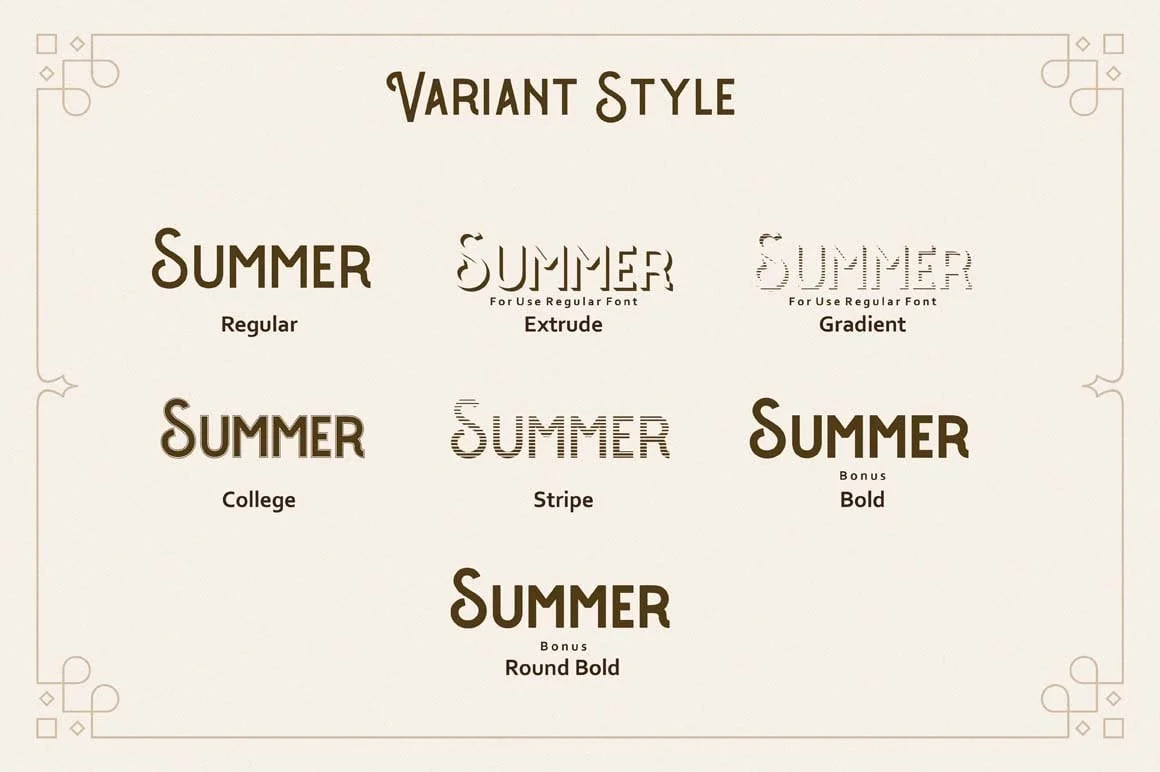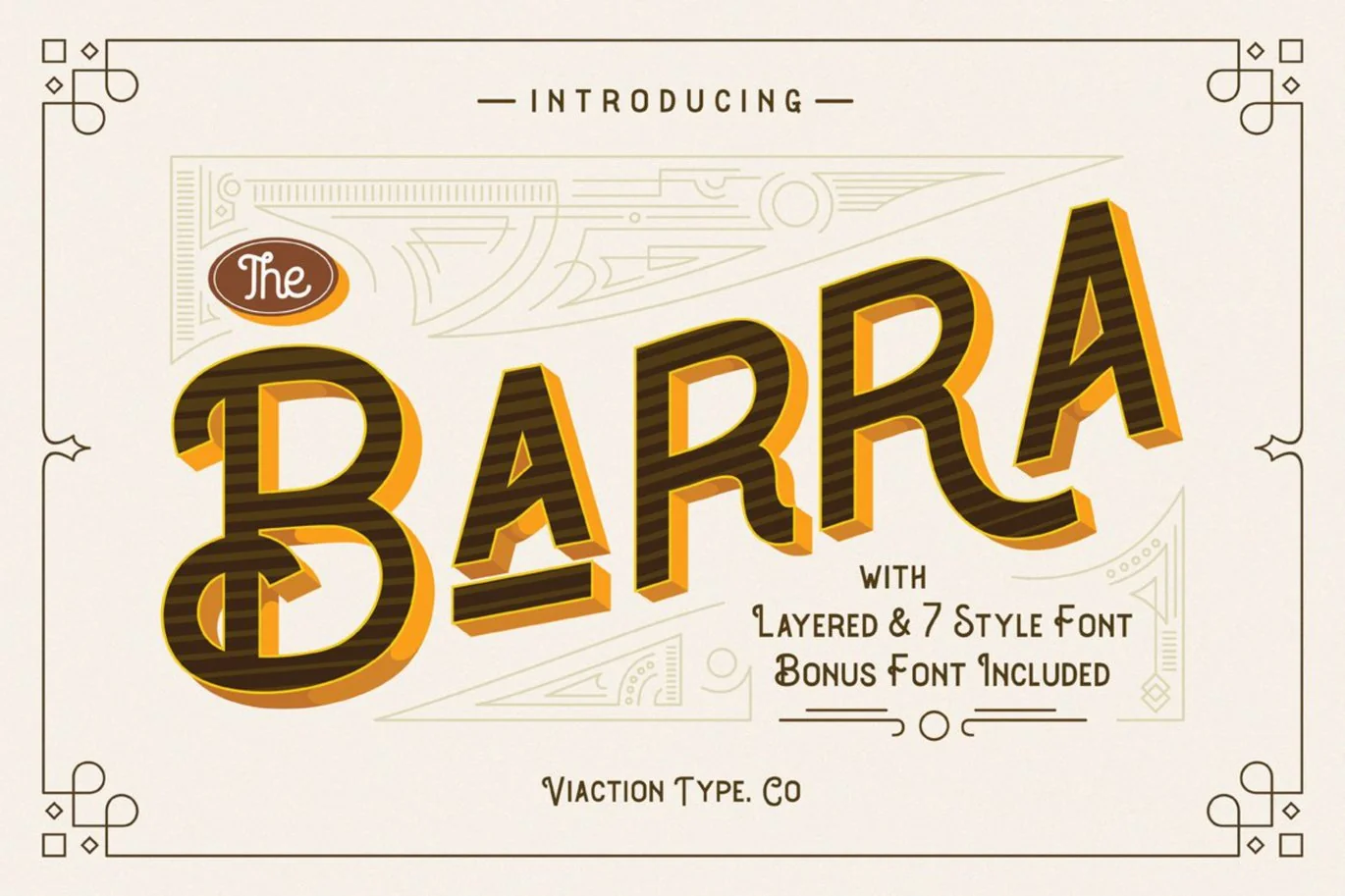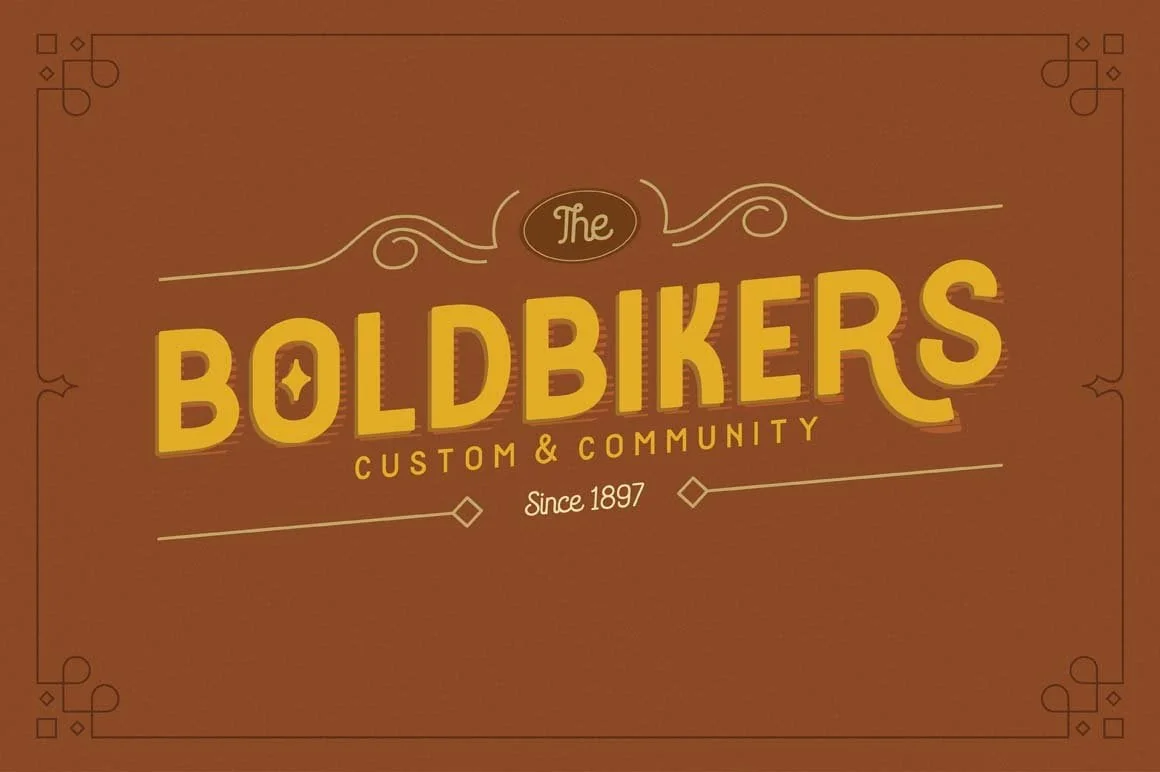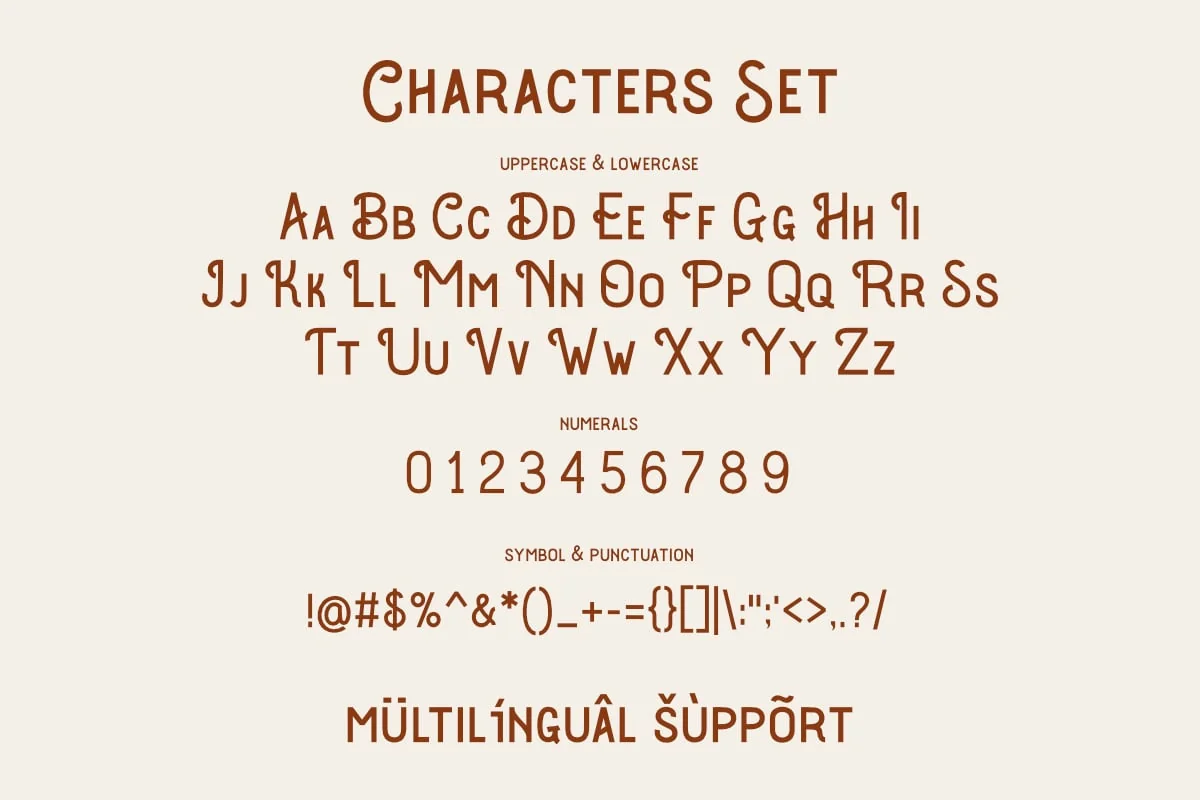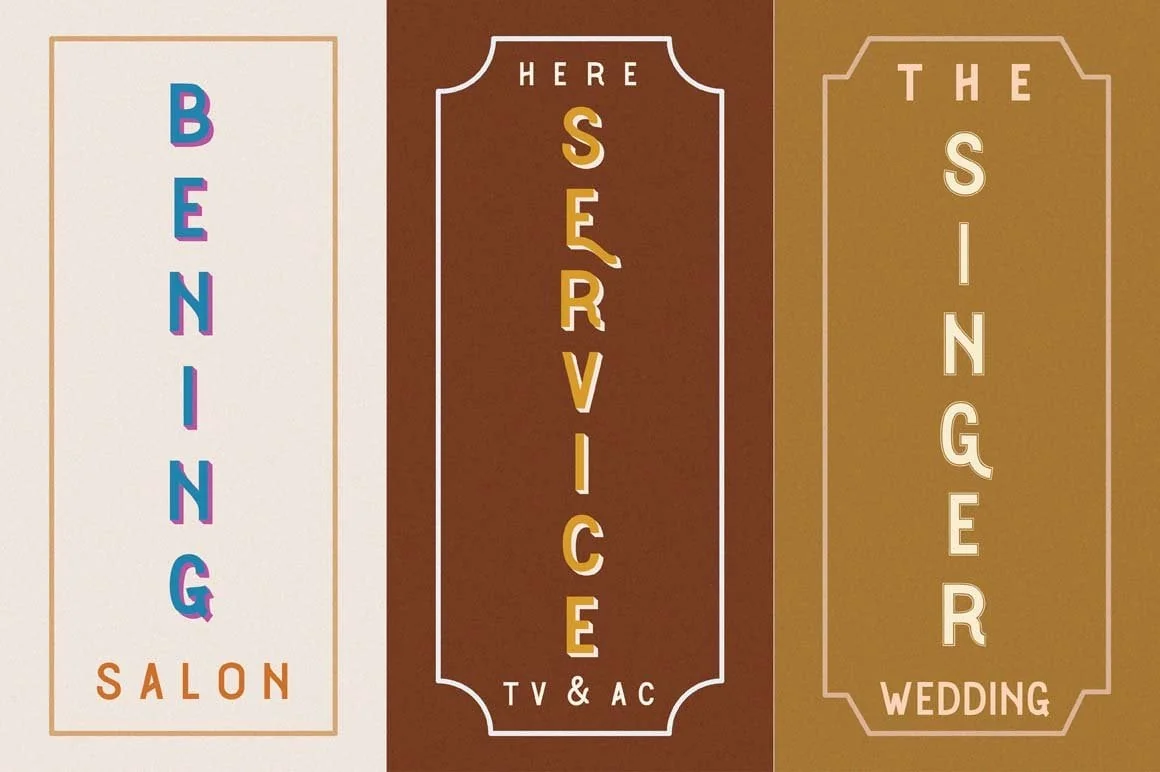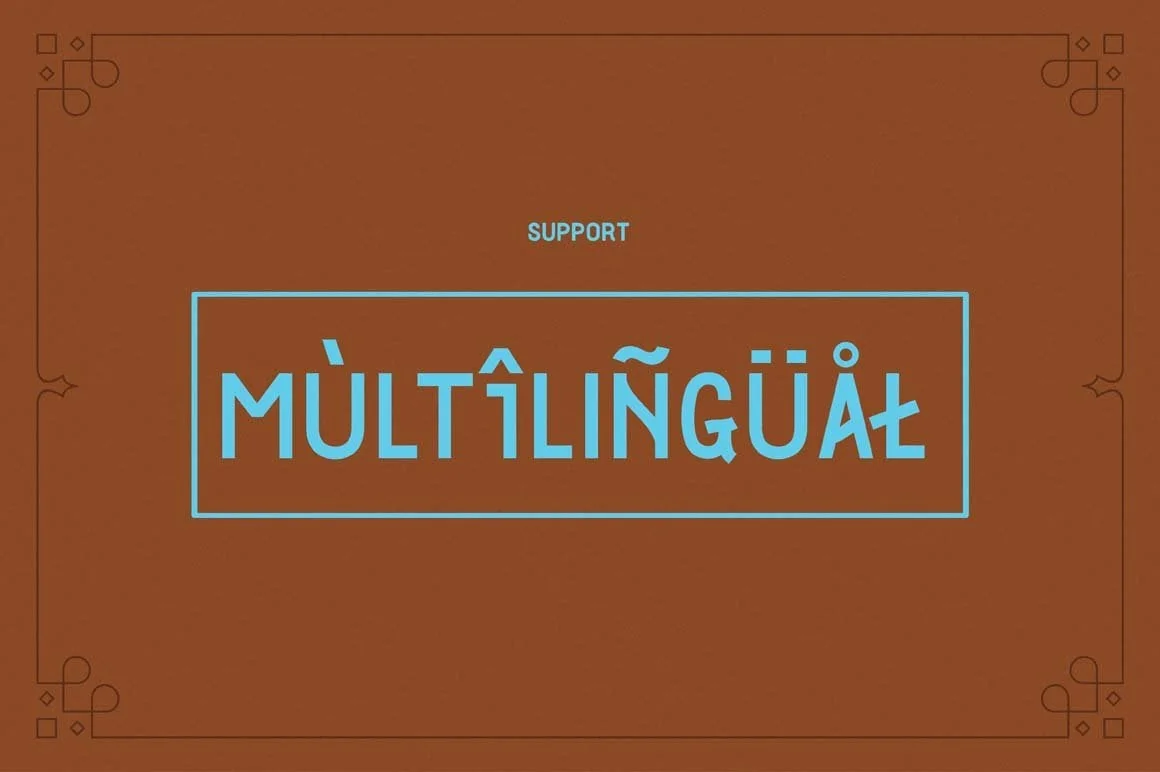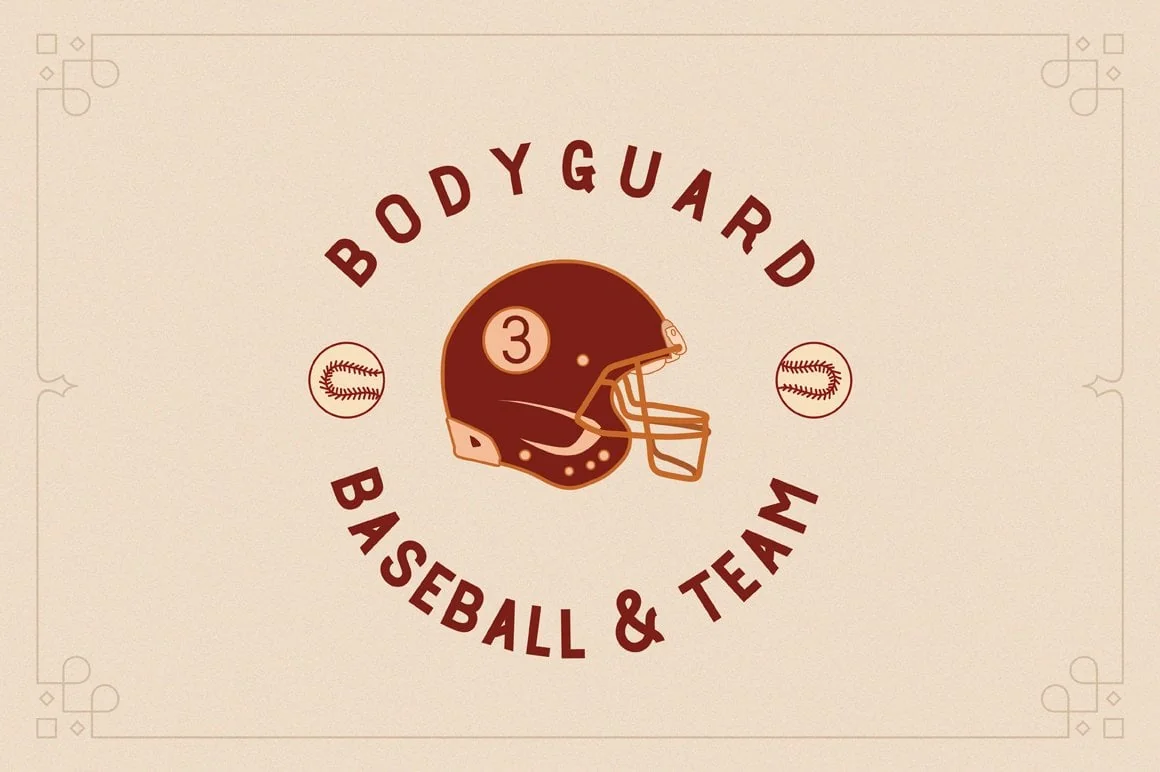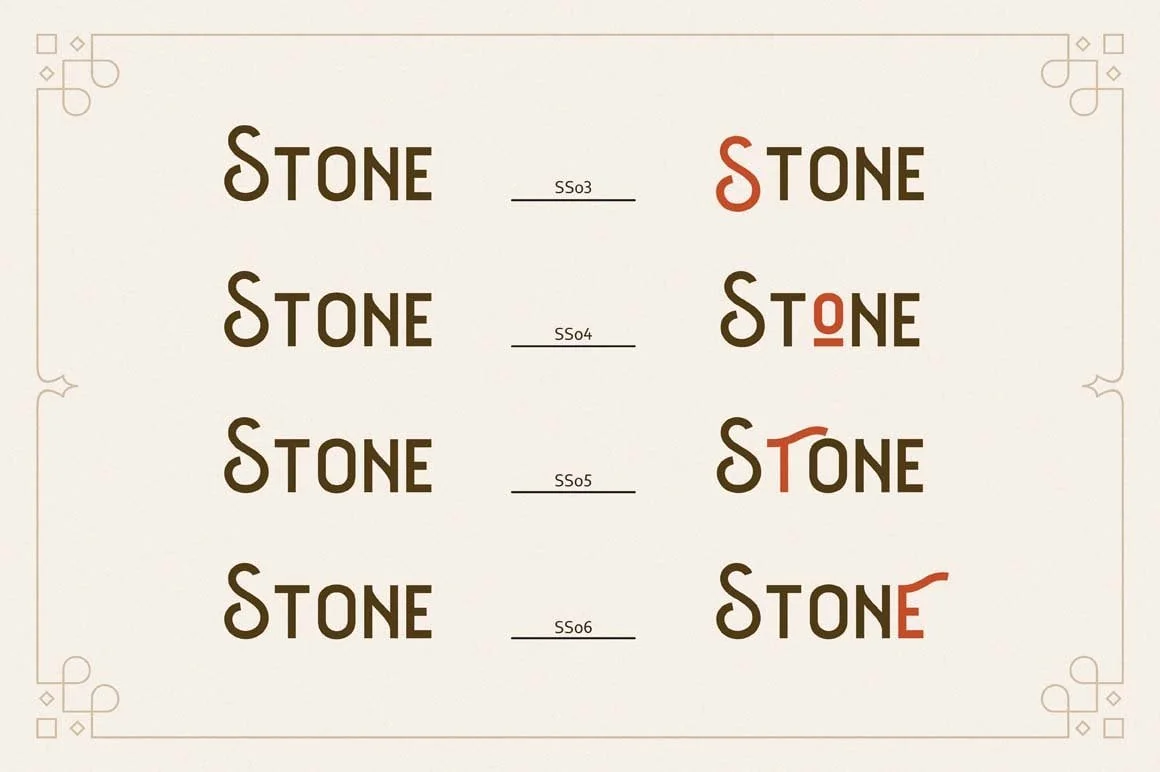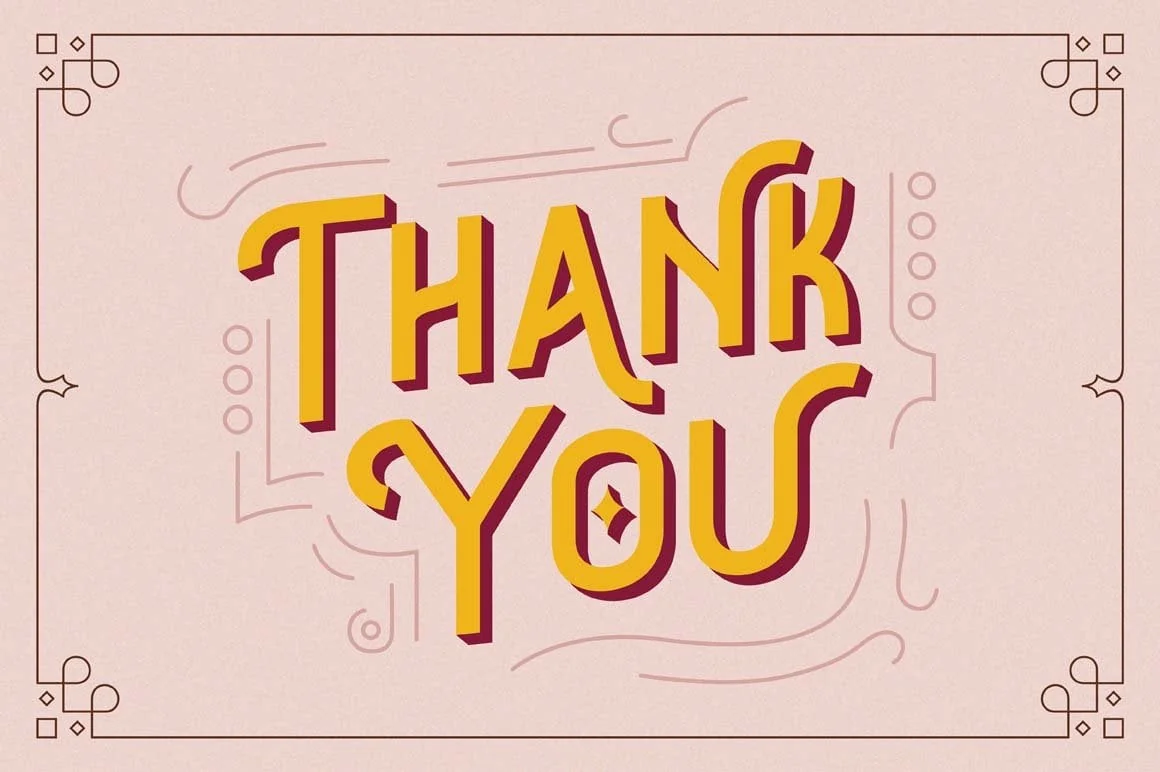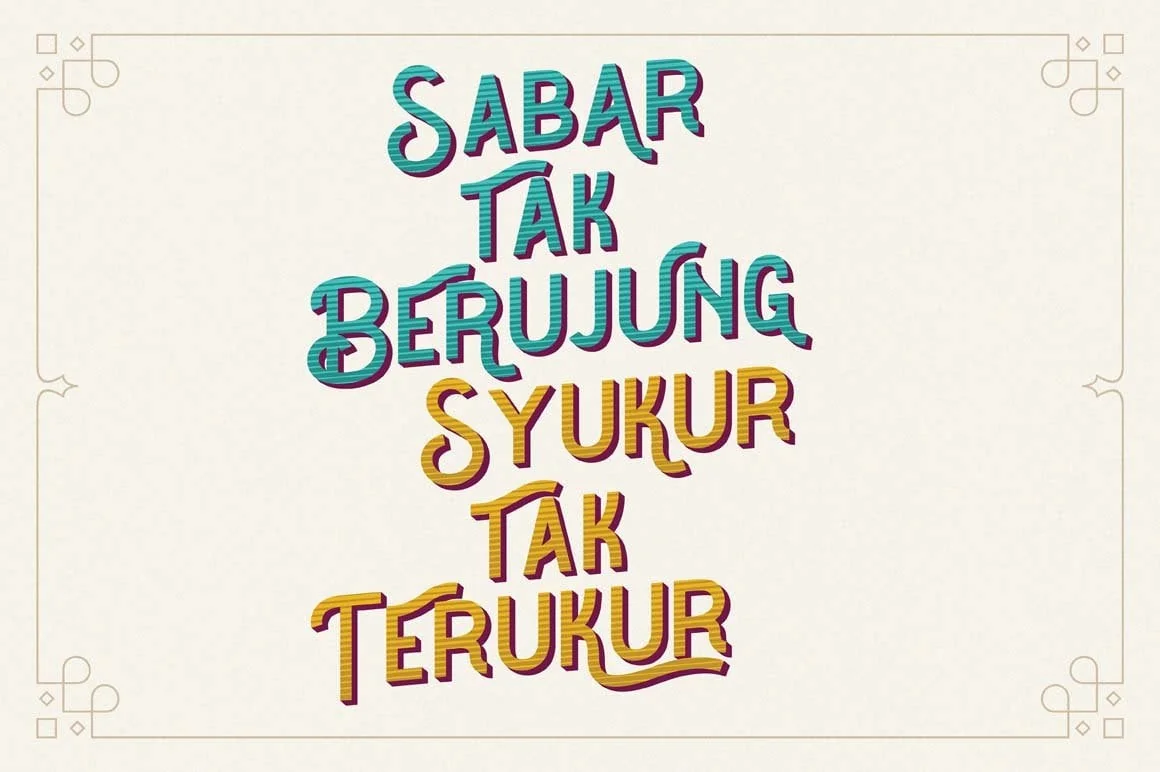
Barra Vintage Font
The Barra is a letter with original sign painter style, nice applied in various products. Complete with multilingual characters, stalistic set, punctuation and symbol . It is suitable for quote, clothing design, vintage logo, label, poster, packaging design and other designs.